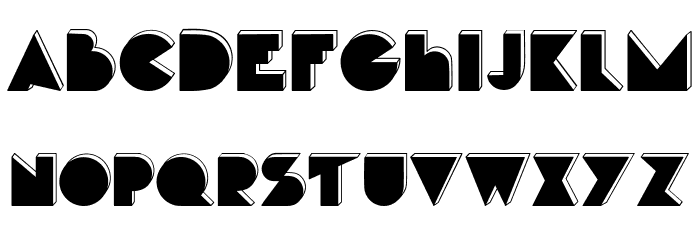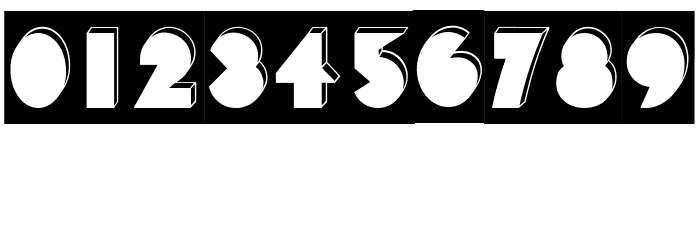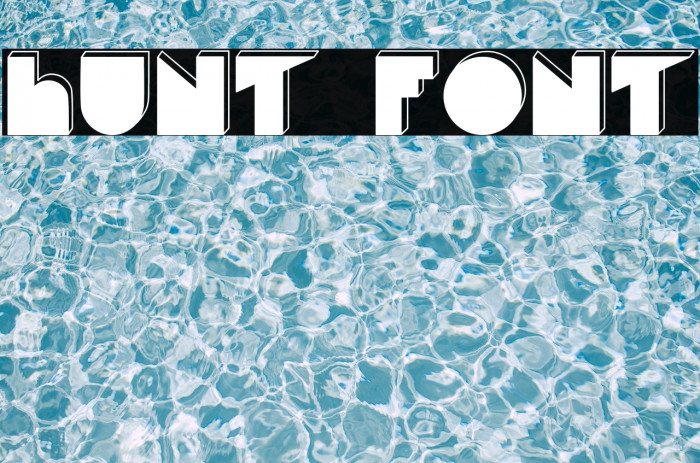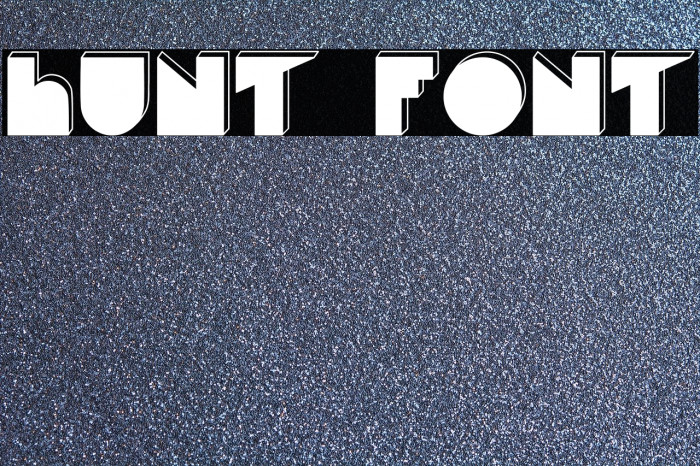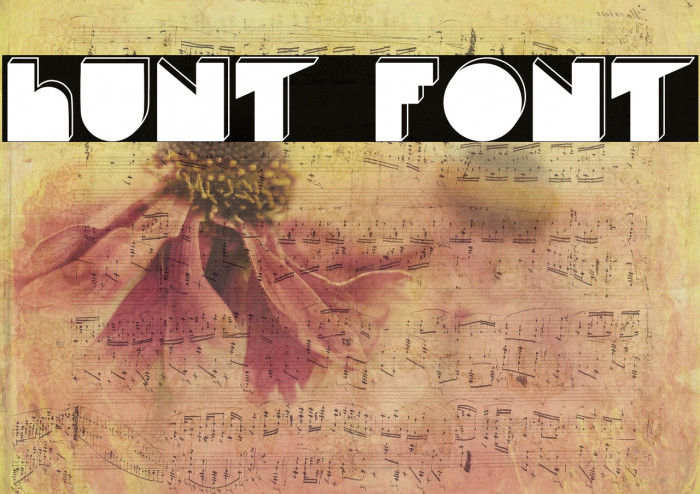
Hunt Font
This font features a bold and geometric design with a distinct three-dimensional effect. The characters are constructed with solid, block-like shapes that give a sense of depth and weight. The use of sharp angles and clean lines creates a modern and futuristic appearance. Each letter is uniquely stylized, with some incorporating cut-out sections or overlapping elements, adding to the dynamic and eye-catching nature of the font. The numbers follow the same design principles, maintaining consistency across the character set. This font is ideal for making a strong visual impact.
A bold, geometric font with a three-dimensional effect and modern style.
- Proposed Projects: Ideal for branding, posters, headlines, and any project requiring a strong visual impact.